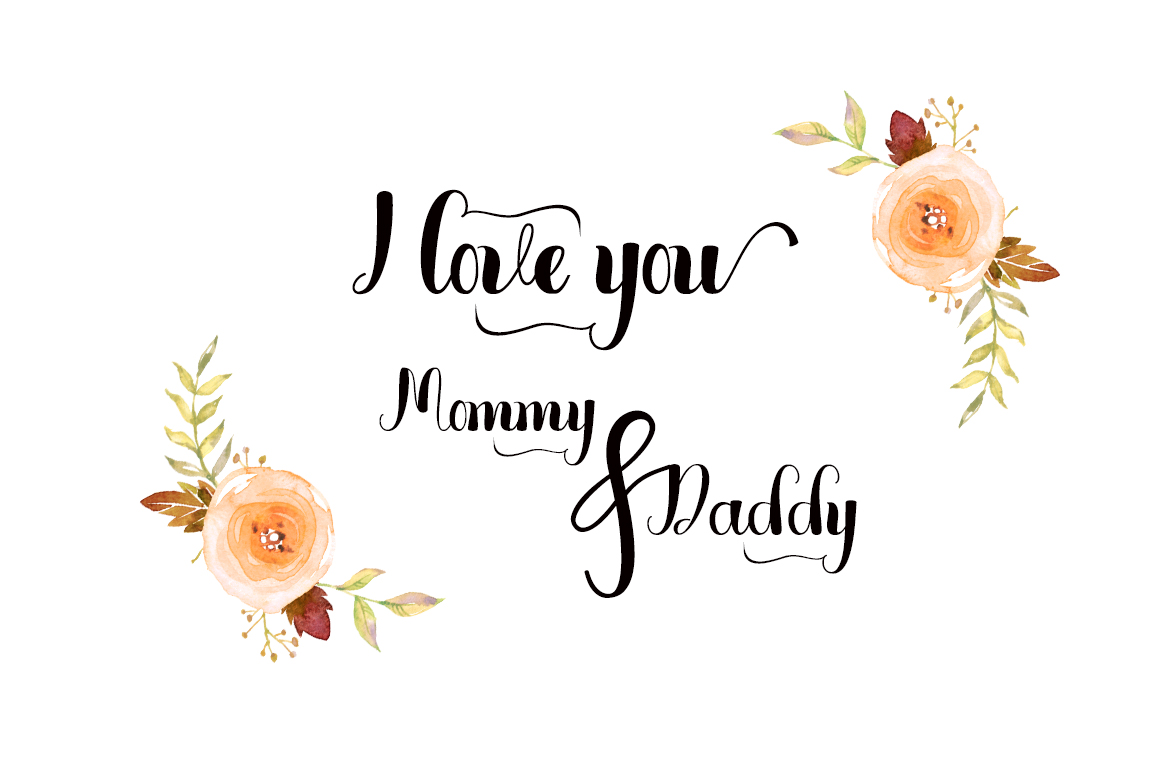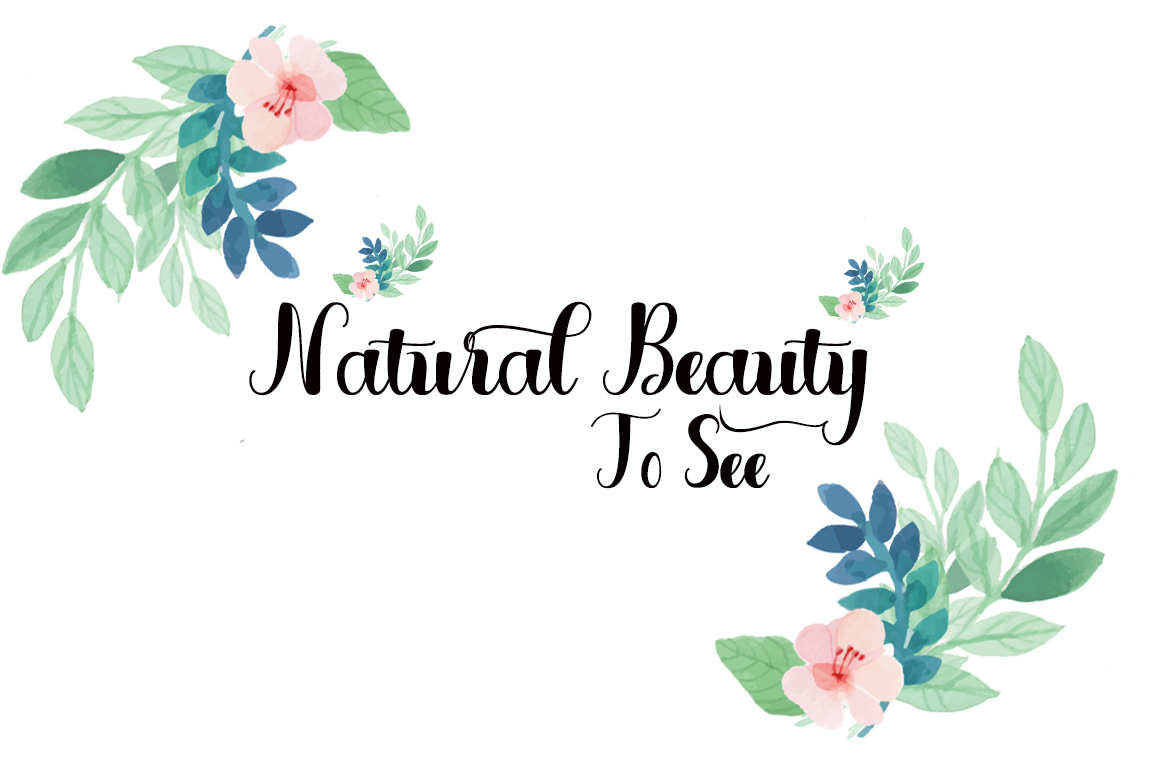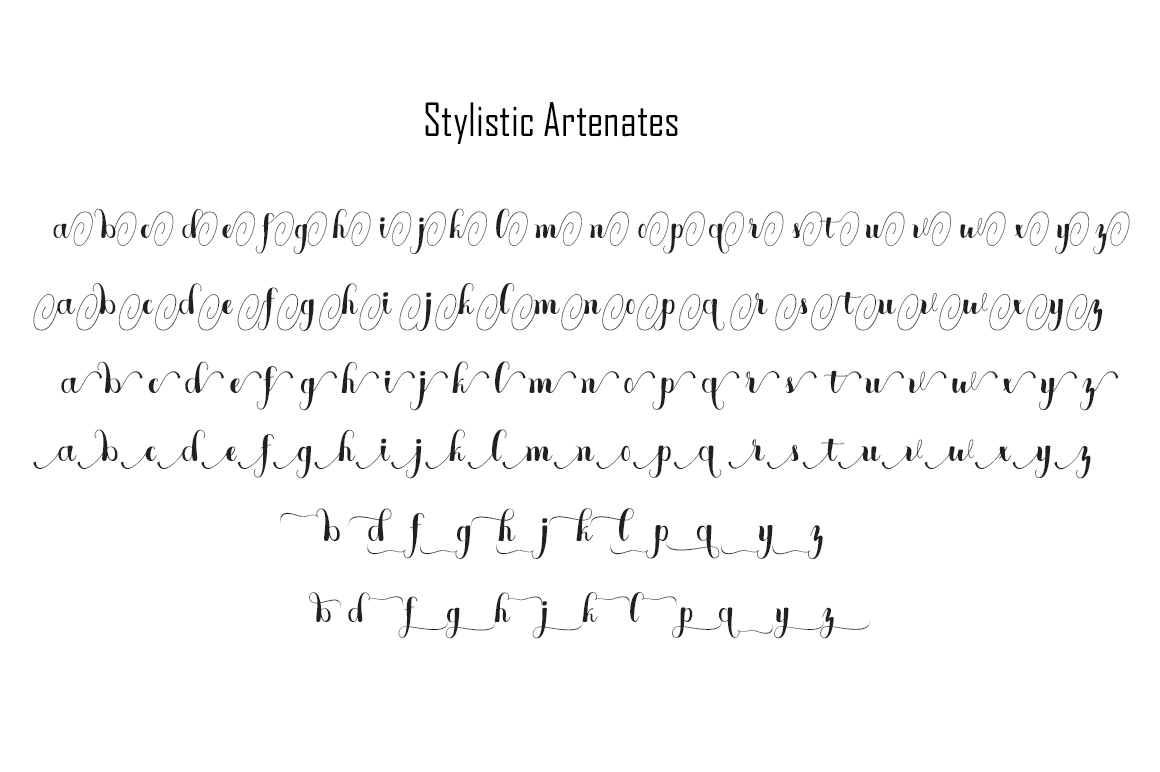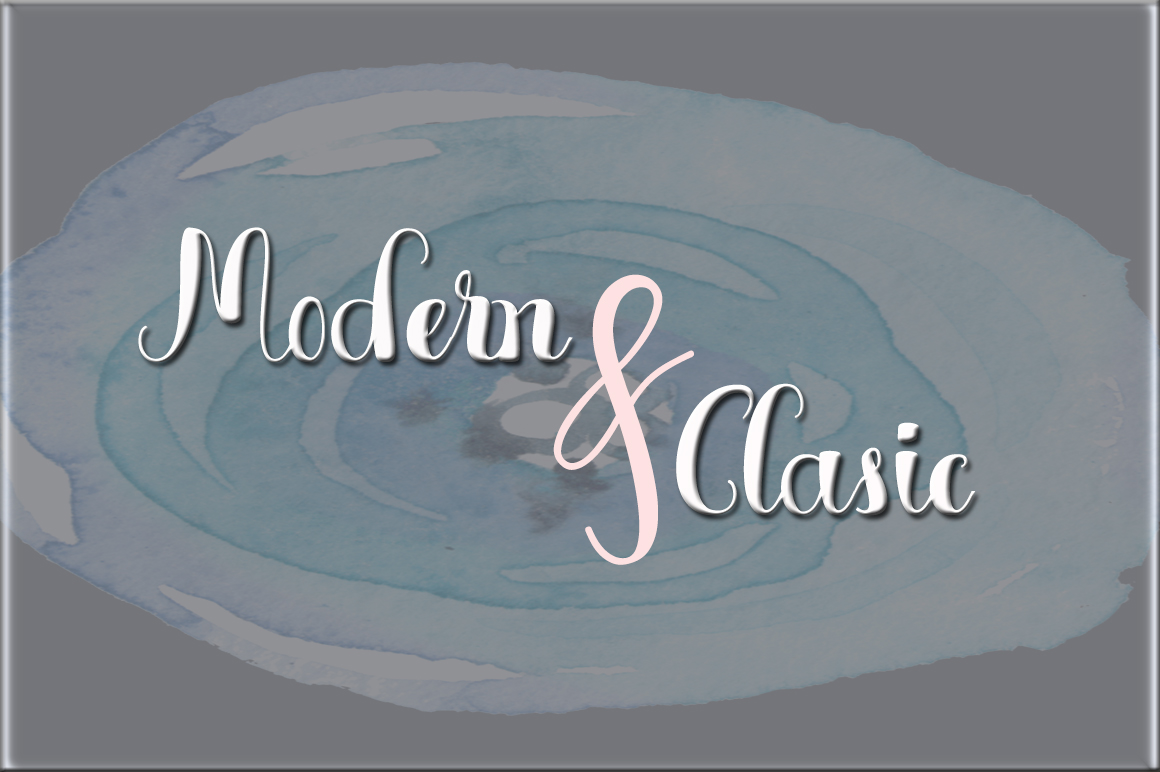
Introduction to Peirolive Font
Have you ever found yourself in the midst of a creative project, struggling to find the perfect font to bring your vision to life? It’s a frustrating feeling, especially when you know that the right typography can make all the difference. As a designer, you’ve probably been there – scrolling through font libraries, searching for that one elusive script that adds a touch of elegance and sophistication to your design.
Well, search no more! We’re excited to introduce you to Peirolive Font, a stunning handmade script font that’s about to become your new go-to design resource. With its modern calligraphy and feminine charm, Peirolive Font is the perfect addition to any creative project, from wedding invitations to branding materials.
What sets Peirolive Font apart is its high-quality design and versatility. Whether you’re looking for a free download or want to purchase the full version, Peirolive Font is available with a transparent background, making it easy to use in any design context. As a designer, you’ll appreciate the value of having access to a reliable, high-quality font like Peirolive Font, and we’re confident that it will become a valuable asset in your design arsenal.
Key Features of Peirolive Font
- High-quality, professional font ideal for creative projects and design resources.
- Unique, modern design with a transparent background, making it perfect for overlaying on images or videos.
- Perfect for use in graphic design, digital art, and other creative endeavors where a high-quality font is essential.
- Designed to be highly legible and visually appealing, even at small font sizes.
Honest Review: Peirolive Font
I recently stumbled upon the Peirolive Font, and I’m excited to share my honest review with you. This font is perfect for designers looking for a high-quality design resource for their creative project.
- ✨ High-quality design with clear and readable text.
- ✨ A wide range of glyphs, including Latin, Greek, and Cyrillic characters.
- ⚠️ Limited font styles and variations available.
Overall, the Peirolive Font is a great addition to any designer’s toolkit. It’s perfect for digital projects, such as websites, social media, and presentations. While it may not be ideal for print materials, its high-quality design and wide range of glyphs make it a valuable resource for any creative project.
Tips for Getting the Most Out of Peirolive Font
Use the Peirolive Font to add a touch of elegance to your designs. Experiment with different font sizes and styles to create a unique look. You can also combine the Peirolive Font with other design elements to create a visually appealing design.
Common Use Cases for Peirolive Font
The Peirolive Font is perfect for creative projects such as brochures, posters, and business cards. You can also use it for digital designs such as social media graphics and website headers.